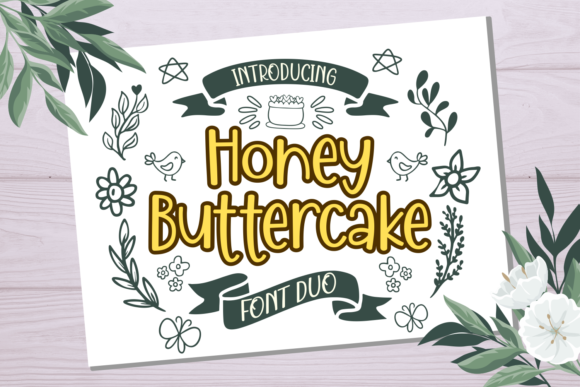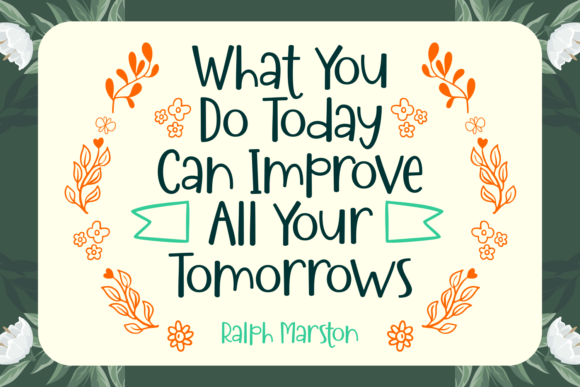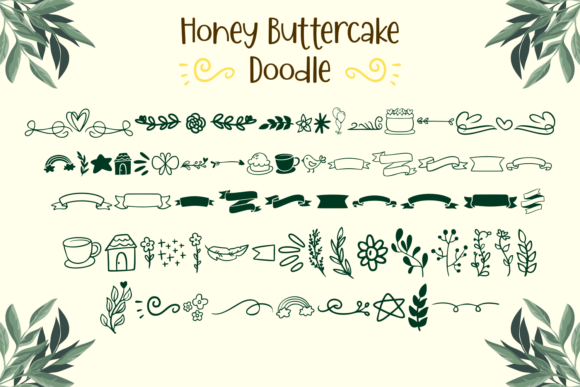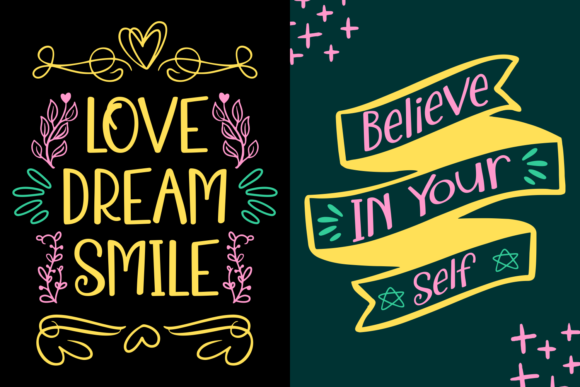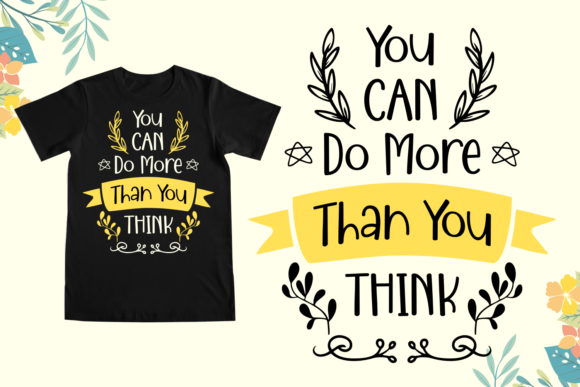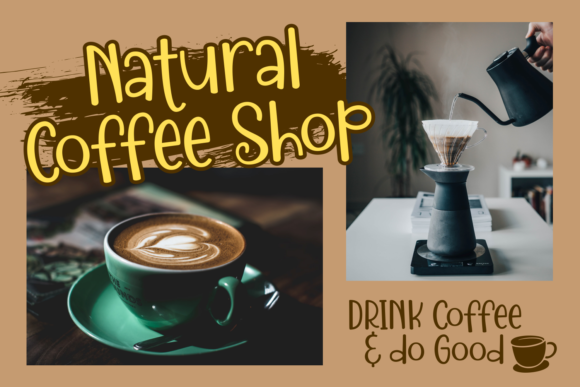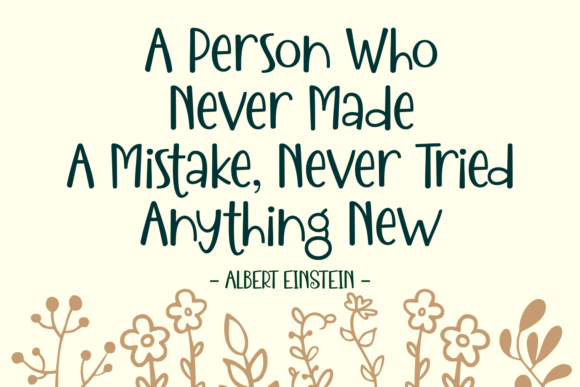
Sweeten Up Your Designs with Honey Buttercake Font
There’s something magical about the moment when a creative project comes together – the perfect combination of color, texture, and typography. For designers, it’s the culmination of hours of brainstorming, sketching, and refining. And when that moment arrives, it’s like a warm hug for the soul. But have you ever felt like something was missing, like a sprinkle of sugar on top of your design? That’s where the Honey Buttercake Font comes in – a delightful duo of display and dingbats that adds a touch of whimsy and personality to any project.
This charming font is more than just a pretty face; it’s a versatile tool that can elevate your designs and leave a lasting impression on your audience. Whether you’re creating a wedding invitation, a children’s book, or a social media campaign, the Honey Buttercake Font is sure to bring a smile to people’s faces and make your work stand out from the crowd.
Honey Buttercake Font Key Features
- Unique Characteristics: Whimsical, hand-drawn design with a touch of warmth and elegance, perfect for bakery, food, and lifestyle brands
Honey Buttercake Font Review
I’ve had the chance to work with the Honey Buttercake font, and here’s my honest take.
What works well: ✨ The Honey Buttercake font is a delightful, hand-drawn script that adds a touch of whimsy and personality to any design. Its soft, rounded edges and subtle texture give it a friendly feel that’s perfect for branding, packaging, and editorial content. The font’s varying line widths and flourishes also make it feel more organic and human, which can be a great asset for creative projects.
- Flexibility: The font comes in a range of weights, from light to bold, which makes it easy to adapt to different design needs.
- Character set: The font includes a comprehensive character set, including accented letters and symbols, which makes it suitable for international designs.
Limitations: ⚠️ While the Honey Buttercake font is generally well-behaved, I’ve noticed that it can be a bit challenging to read in small sizes, particularly in body text. Additionally, the font’s intricate details can sometimes get lost when scaled down or used in low-resolution contexts.
Overall impression: The Honey Buttercake font is a charming and versatile script that can add a lot of personality to your designs. While it may have some limitations, its unique character and flexibility make it a great choice for creative projects where you want to stand out from the crowd.
Getting the Most Out of the Honey Buttercake Font
To get the most out of the Honey Buttercake Font, try the following:
- Pair it with a contrasting background color to make it stand out.
- Use it in conjunction with other whimsical fonts to create a playful design.
The Honey Buttercake Font is perfect for:
- Baking and food-related designs.